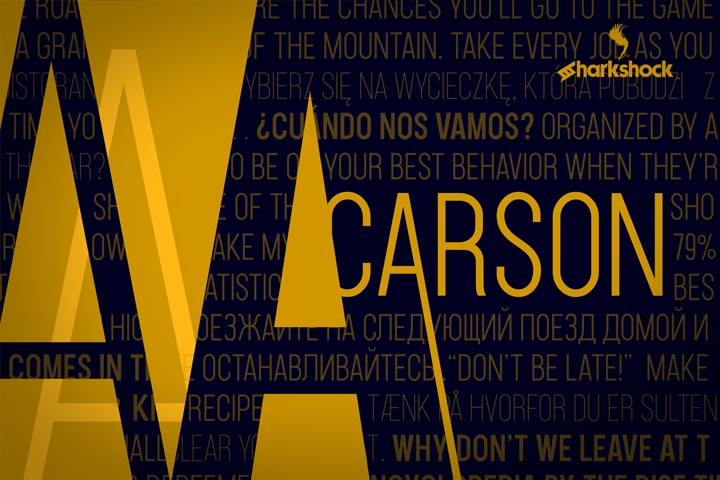
OTF: Carson (Regular, Light, and Bold) by Dennis Ludlow Sharkshock 2018 all rights reserved dennis@sharkshock.net Carson is an all caps display family available in 3 weights designed for anytime use. Basic in construction, it features smooth and even lines with a consistent line weight. The exception is in the bold version which features lighter strokes along some of the curves for a bit of contrast. This semi-condensed font family has a vertical nature to comfortably fill in tight spaces. Use Carson for a book, website subtitles, or a company logo. Basic Latin, extended Latin, diacritics, Cyrillic, punctuation, and kerning are all included in the full version. The demo features basic Latin, limited punctuation, kerning, and numbers. The complete family is $35 for personal use only. Just go to www.sharkshock.net/pay and specify which font you�d like. Please note this $35 does NOT constitute a contract for commercial use. For information on commercial licensing please visit www.sharkshock.net/license. Thank you for your support! visit www.sharkshock.net for more and take a bite out of BORING design! Tags: line, weight, Gothic, brand, logo, basic, display, sans, magazine, book, publishing, European, Cyrillic, French, German, Polish, Spanish, Russian, Latin, thin, contrast, art, square, style, book, tall, vertical, light, condensed |